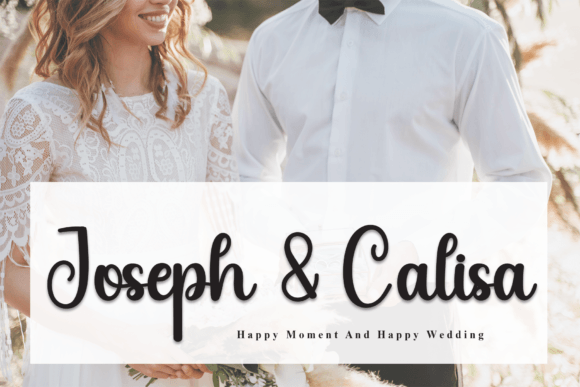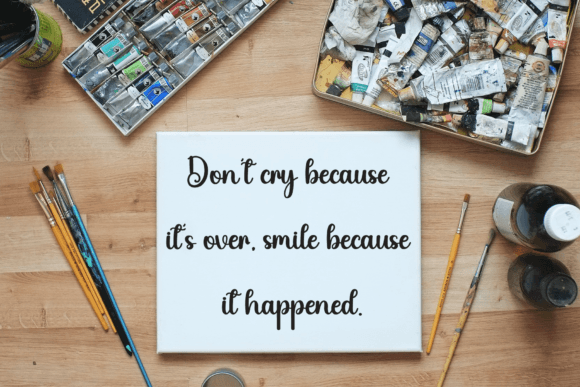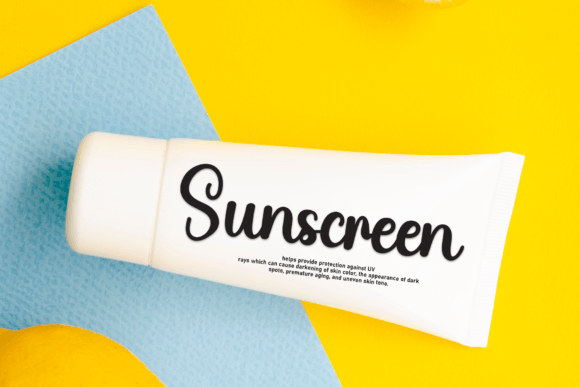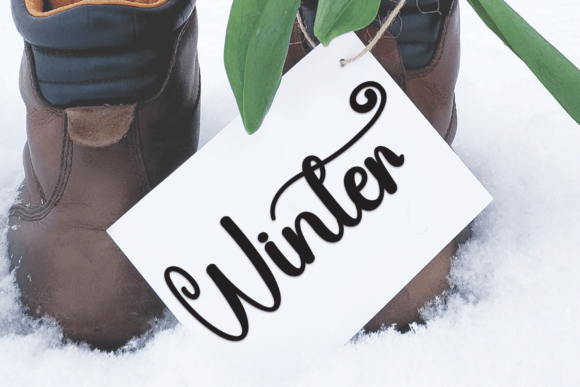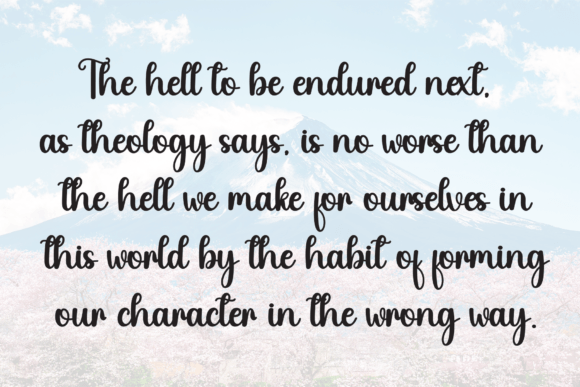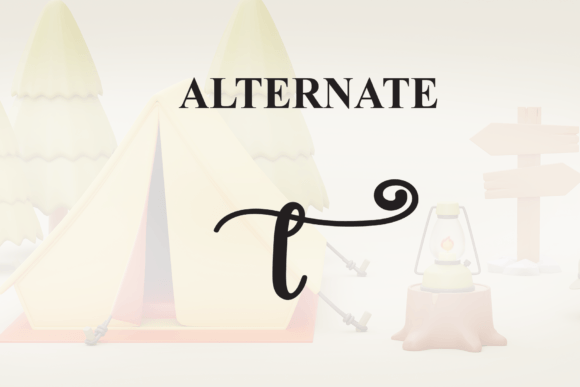
Introduction to Scoutday Font
As a designer, have you ever been stuck in front of a blank canvas, struggling to find the perfect font to bring your creative project to life? You know the feeling – it’s like searching for the missing piece of a puzzle. But what if I told you there’s a font that can change all that? Say hello to the Scoutday Font, a sweet and friendly handwritten font that’s about to become your new design BFF.
With its natural and unique style, Scoutday Font is the ultimate design resource for any creative project. Whether you’re working on a high-quality logo, a free download template, or a transparent background design, this font is sure to add a touch of warmth and personality to your work. And the best part? Its versatility knows no bounds, making it the perfect addition to any design arsenal.
So, what makes Scoutday Font so valuable to designers? For starters, its friendly and approachable style makes it incredibly fitting for a wide range of designs, from children’s books to food labels. And with its free download availability, you can start experimenting with it right away. Get ready to unleash your creativity and take your designs to the next level with the Scoutday Font!
Key Features of Scoutday Font
- High-quality design resource ideal for creative projects, including logos, branding, and graphics.
- Unique, modern design with a transparent background, allowing for seamless integration with any background.
- Perfect for designers and artists looking for a distinctive and eye-catching font to elevate their creative project.
Honest Review: Scoutday Font
As a designer, I’ve had my fair share of fonts to work with, but I’m excited to share my thoughts on the Scoutday Font. I downloaded it for free, and I must say, it’s a great addition to my design resource library.
What works well is the clean and modern design of the Scoutday Font. The high quality of the font is immediately noticeable, making it perfect for creative projects that require a touch of sophistication. I particularly love the variety of styles and weights available, which gives me endless possibilities for my designs.
- ✨ Clean and modern design
- ✨ High quality and crisp typography
- ✨ Transparent background for easy use
However, I do have a few limitations to mention. The Scoutday Font may not be suitable for projects that require a bold or dramatic look, as it’s more suited for minimalist designs. Additionally, the font may not be as versatile as some other options, but this is a minor complaint.
Overall, I’m impressed with the Scoutday Font, and I think it’s a great addition to any designer’s toolkit. It’s perfect for designers who want a high-quality, free font that’s easy to use and customize.
Scoutday Font
The Scoutday Font is a high-quality design resource that can elevate your creative project to the next level. This free download is perfect for designers and non-designers alike, offering a versatile and modern aesthetic.
– Use the Scoutday Font in your presentations and documents to add a touch of modernity and sophistication. Its free download makes it an accessible design resource for anyone.
Tips for Getting the Most Out of Scoutday Font
To get the most out of the Scoutday Font, experiment with different font sizes, colors, and combinations. Use it in conjunction with other design elements to create a cohesive and visually appealing design.
The Scoutday Font is perfect for a variety of creative projects, including:
- Logos and branding
- Print design and advertising
Alternatives to Scoutday Font
Montserrat is a high-quality sans-serif font ideal for creative projects that require a clean and modern look. It’s a free download and offers a transparent background, making it perfect for graphic design and digital art. Use Montserrat when you need a versatile font that can be used for headings and body text alike. Compared to Scoutday Font, Montserrat is more geometric and has a stronger emphasis on x-height.